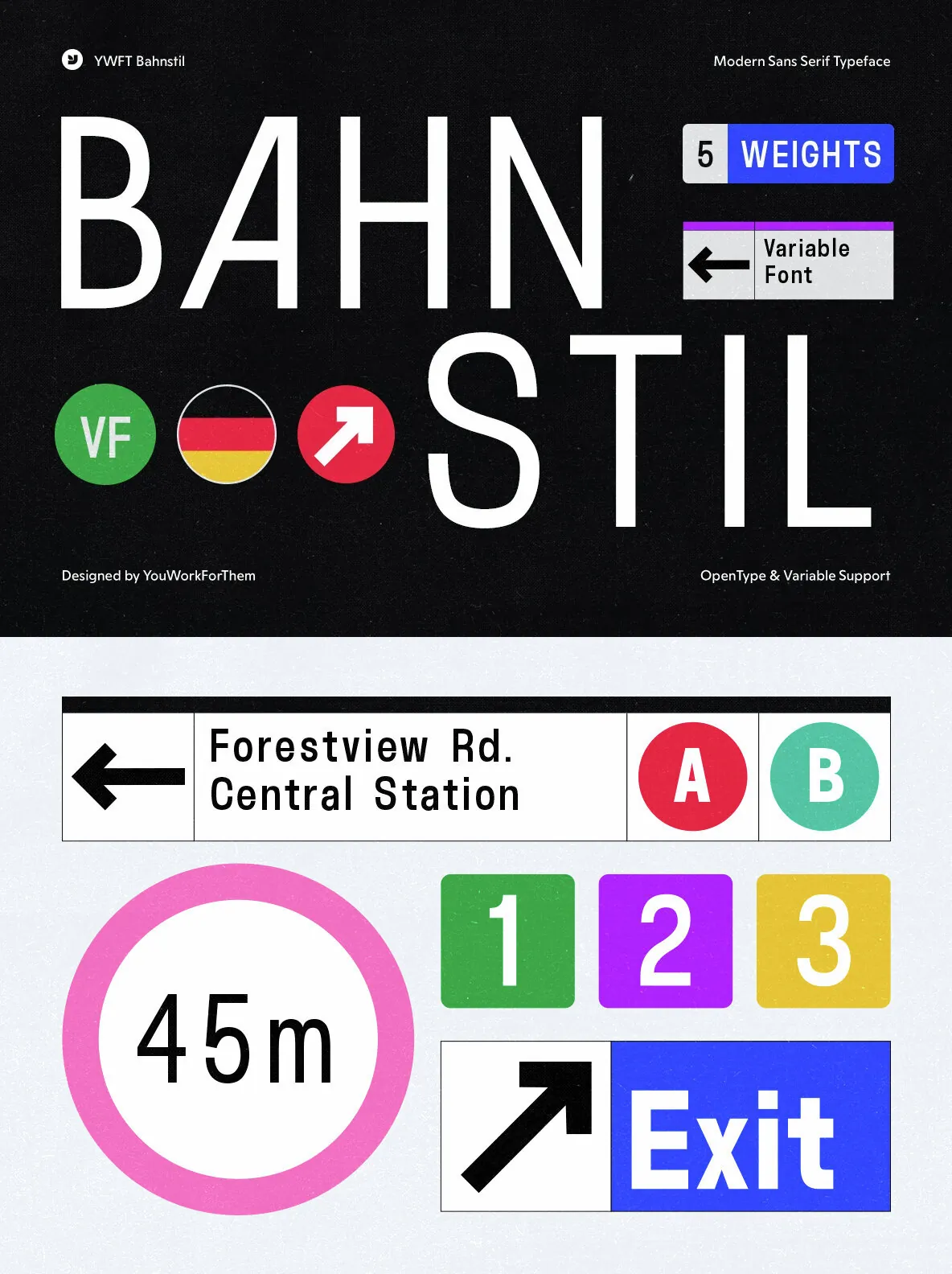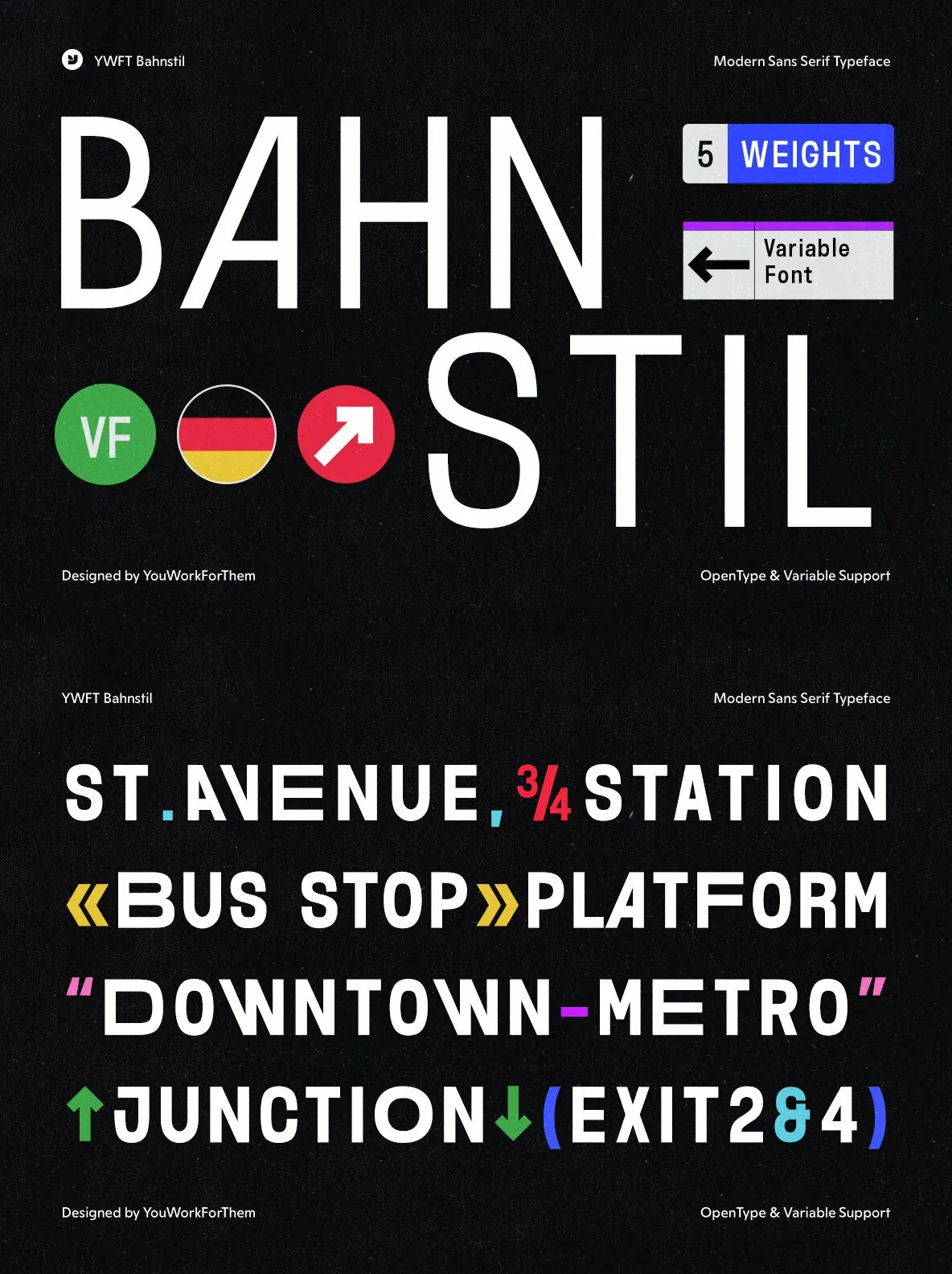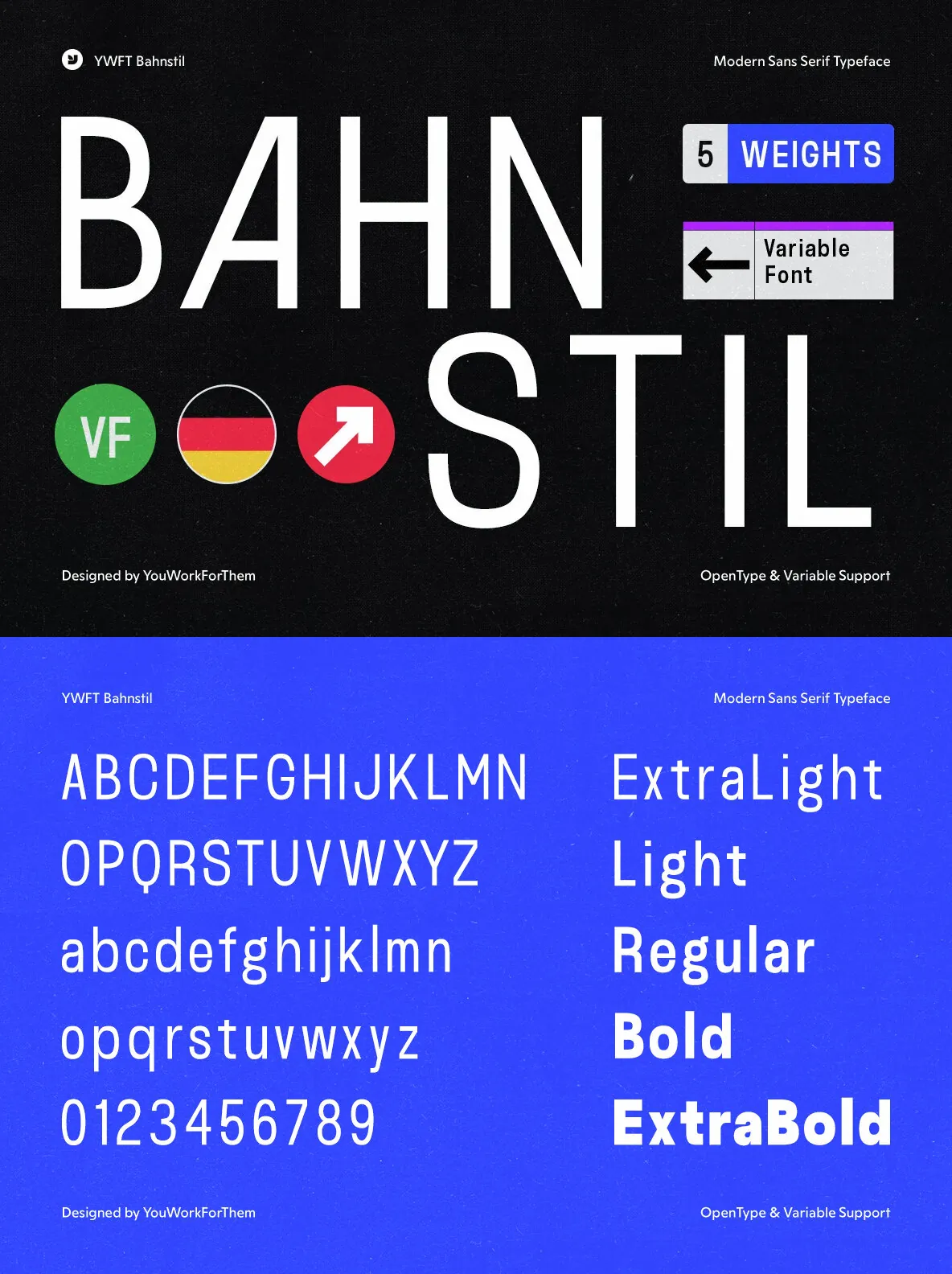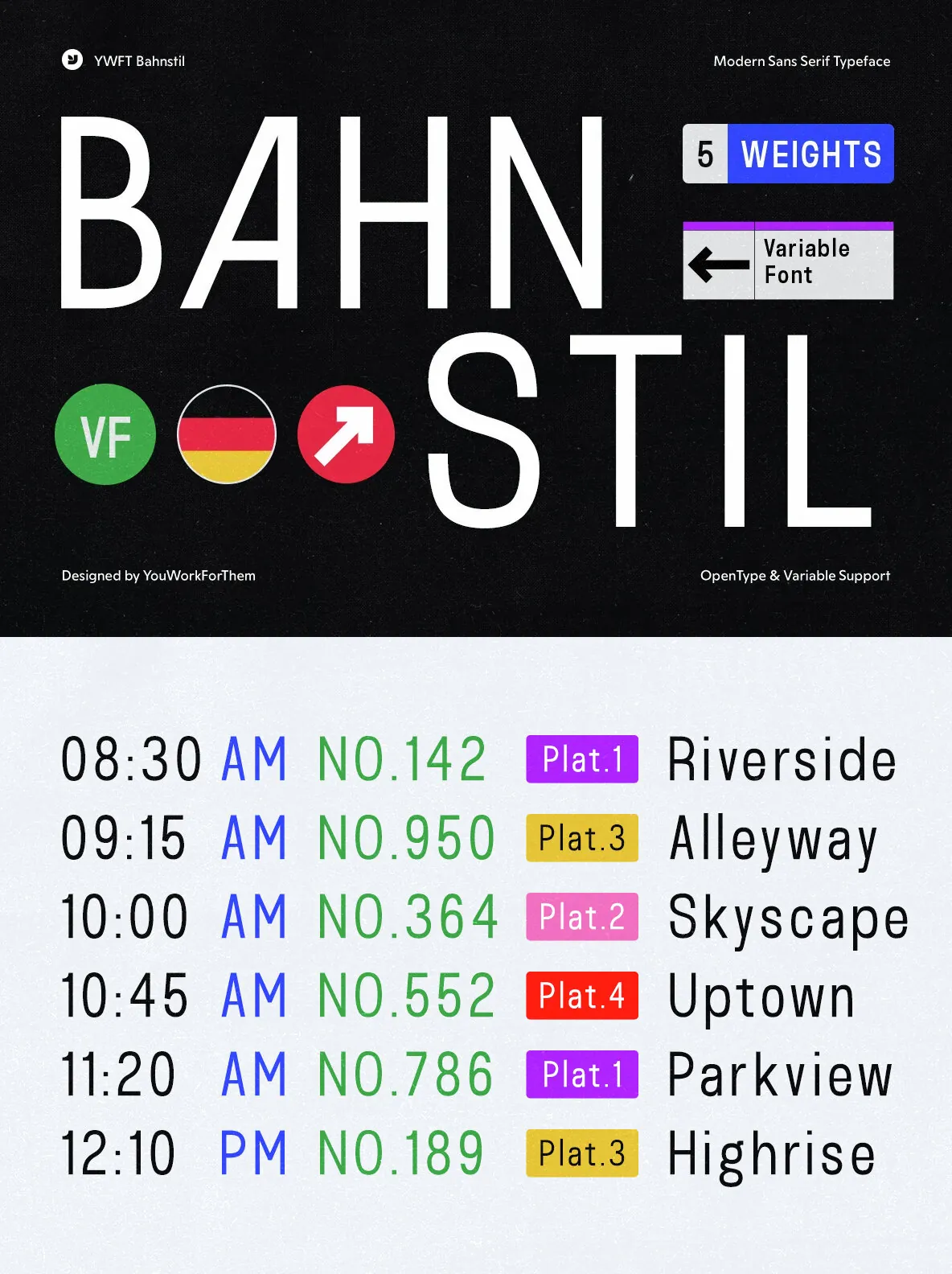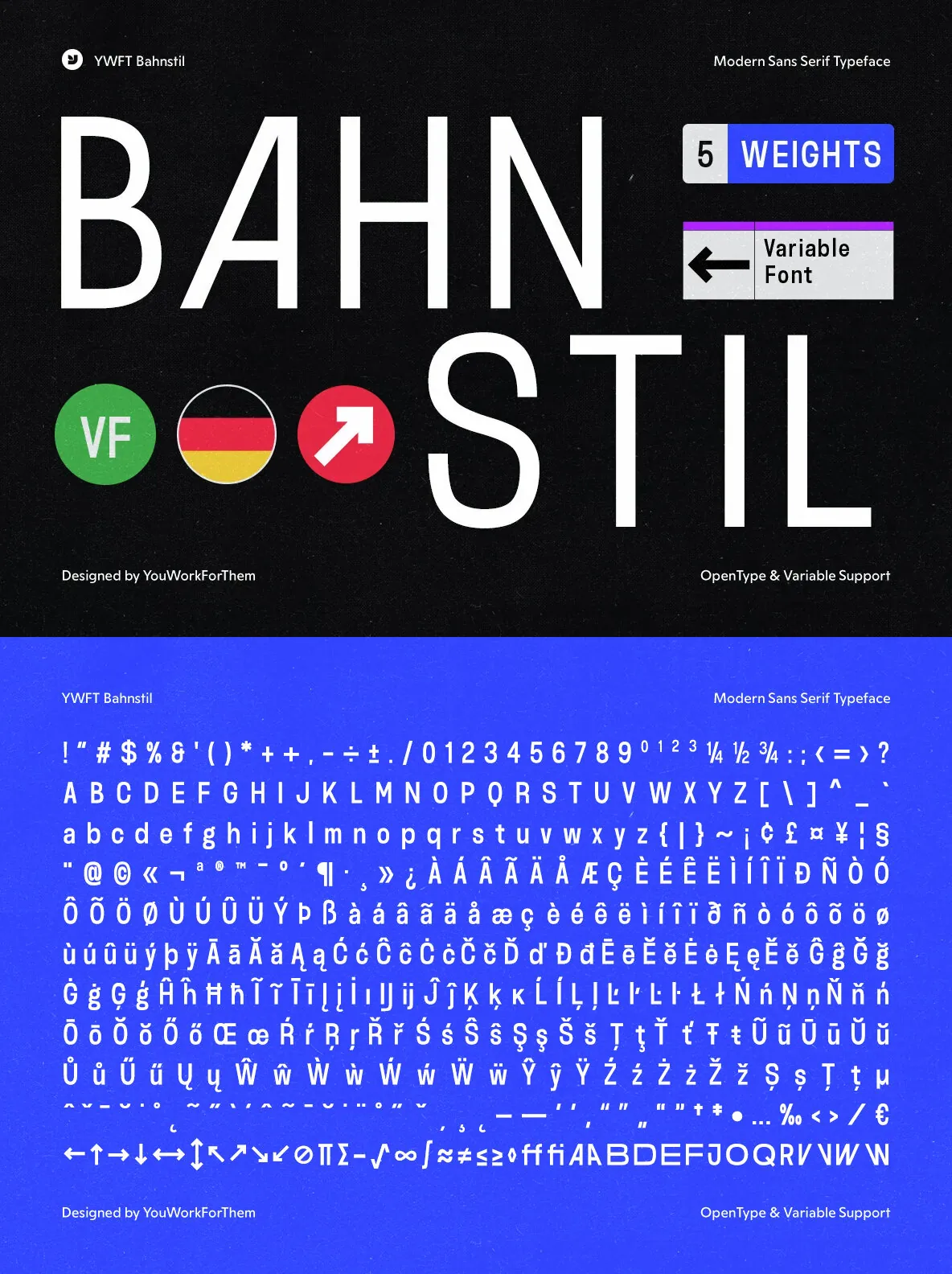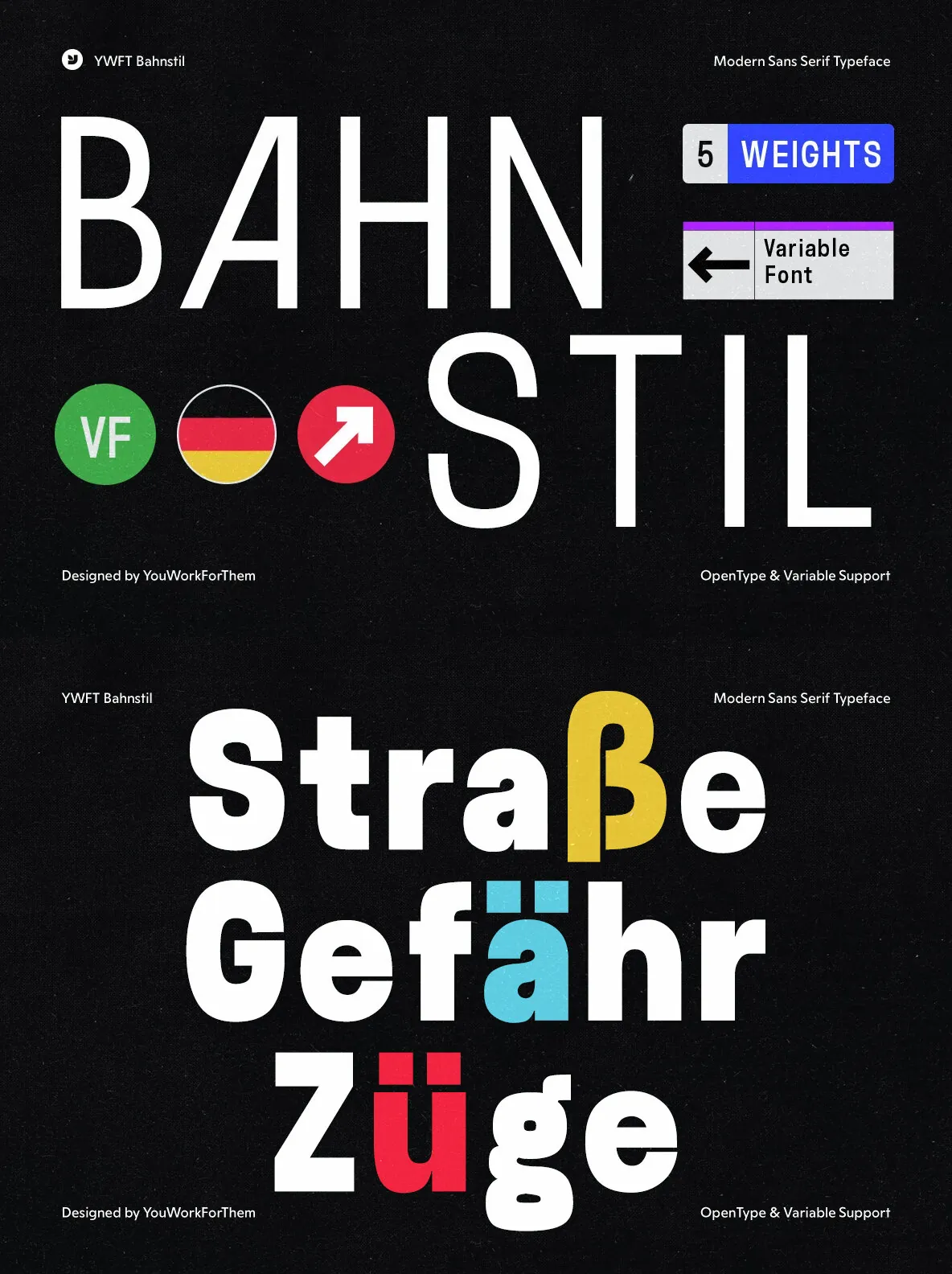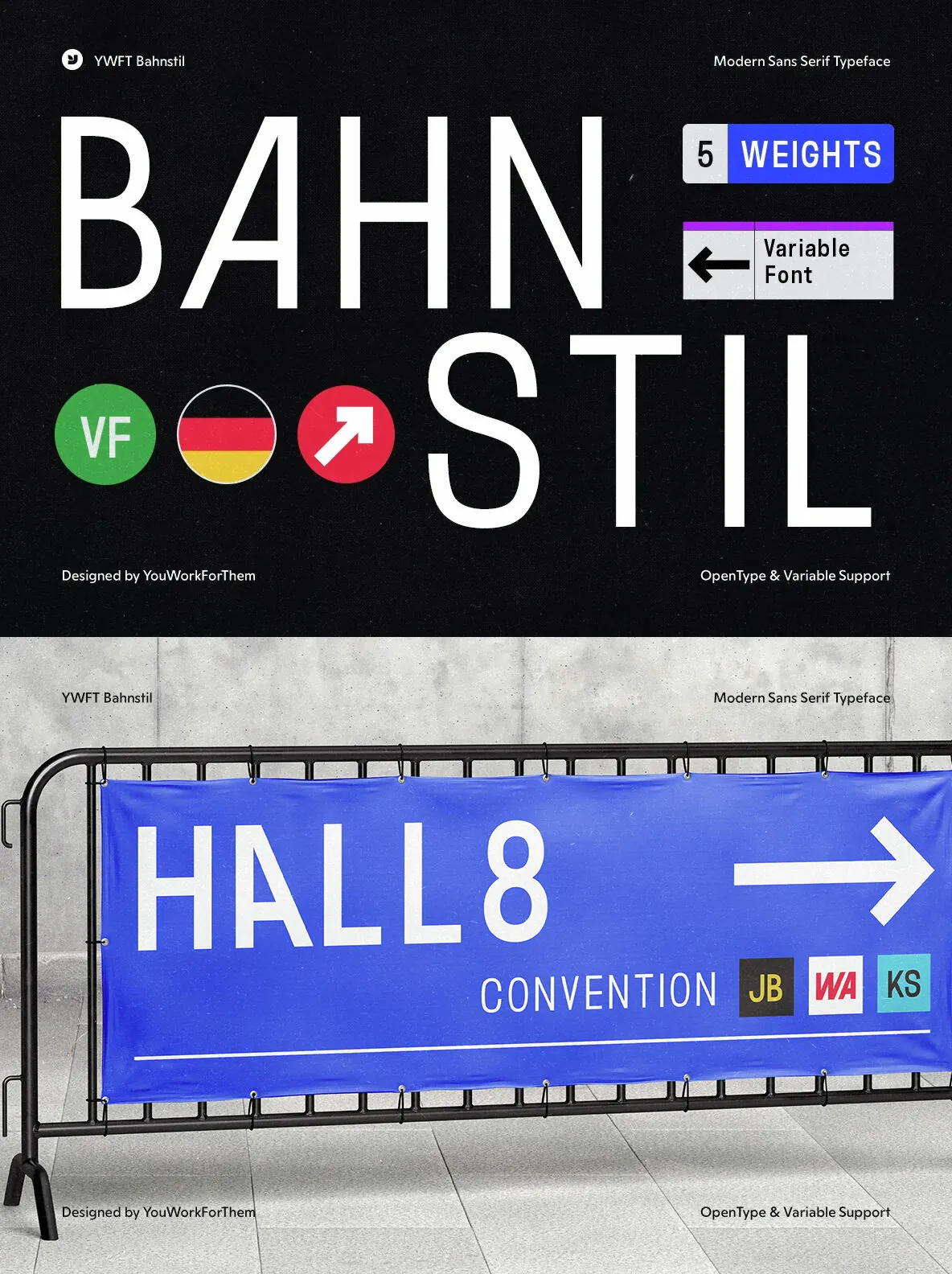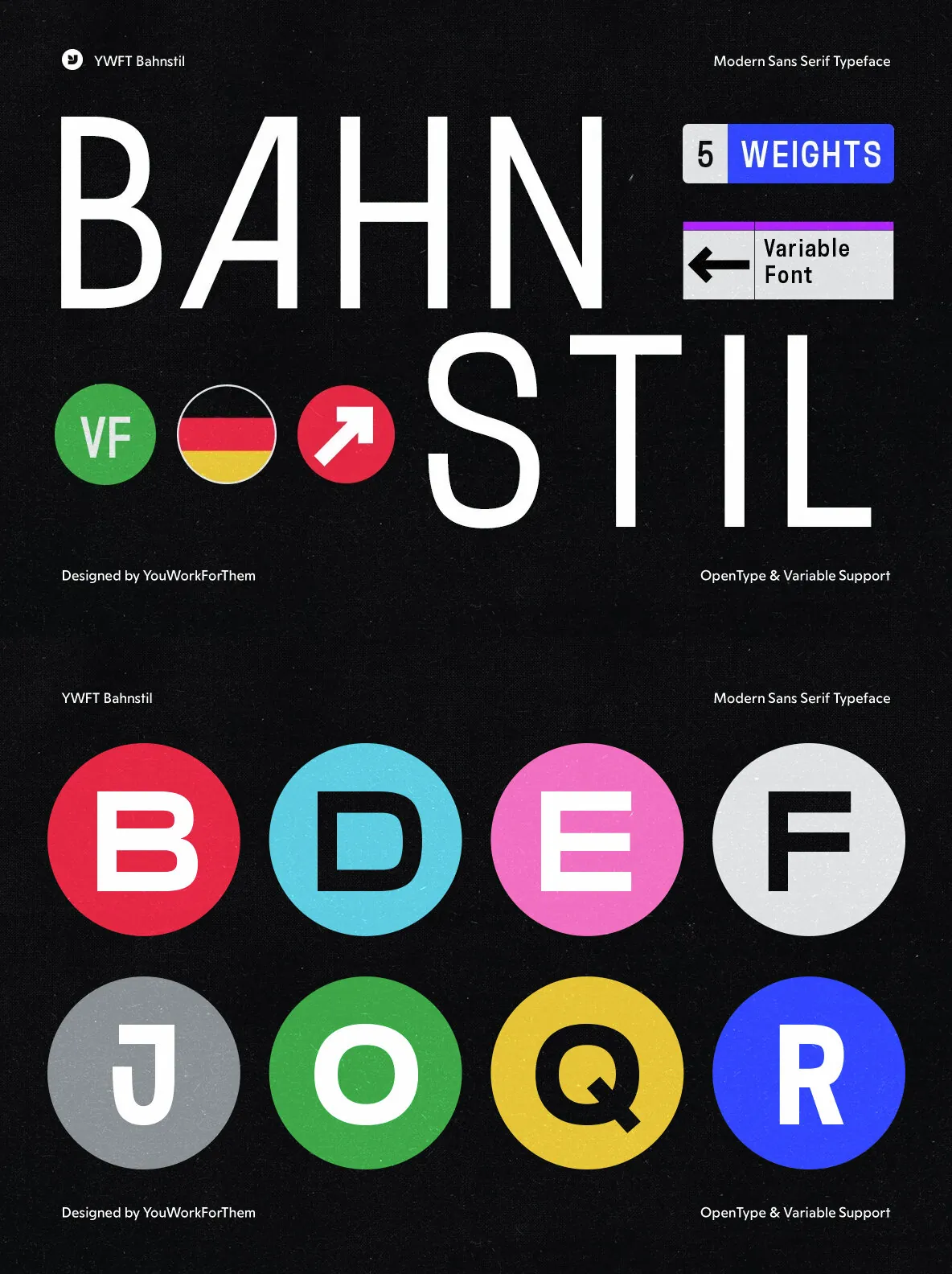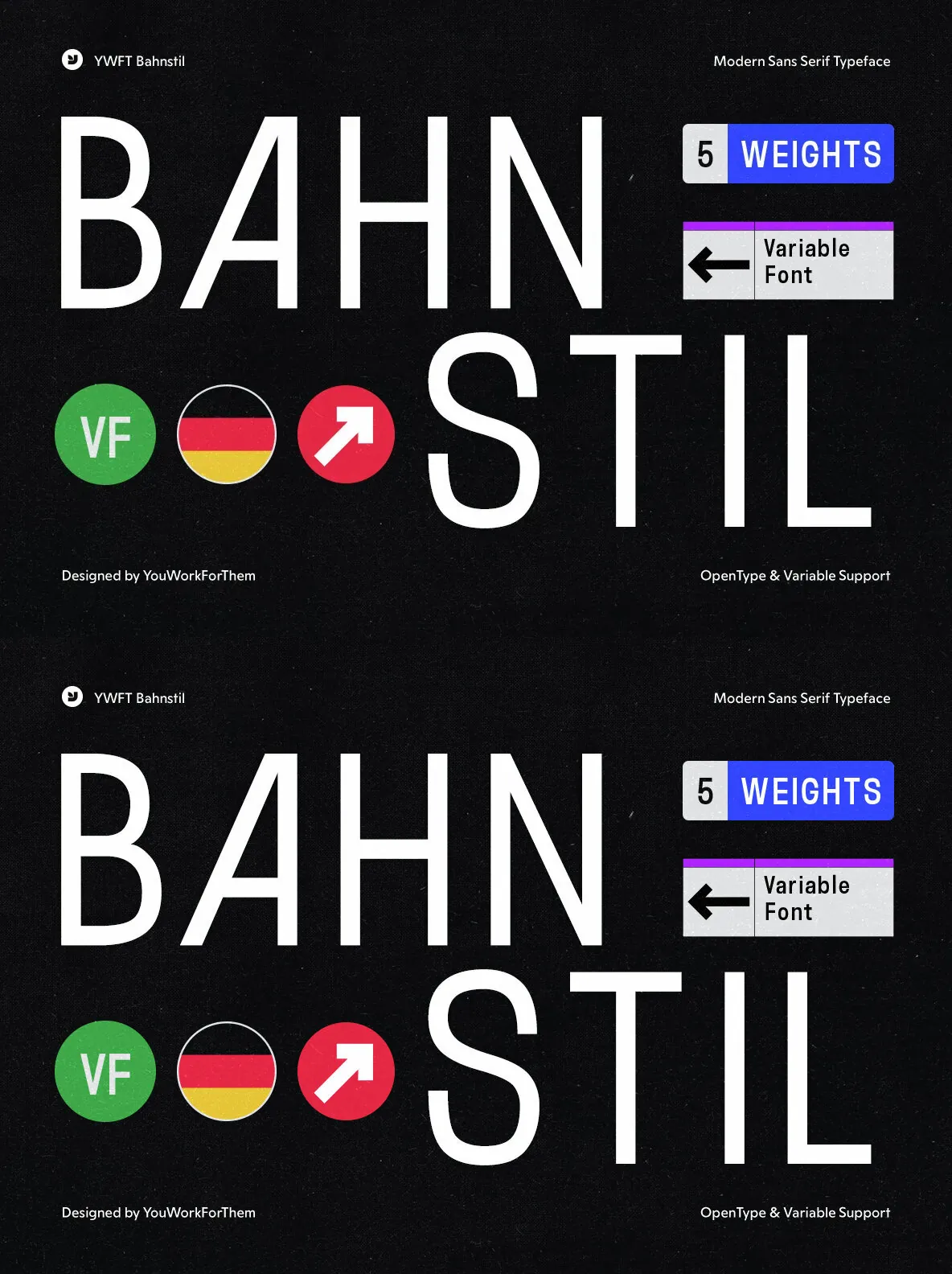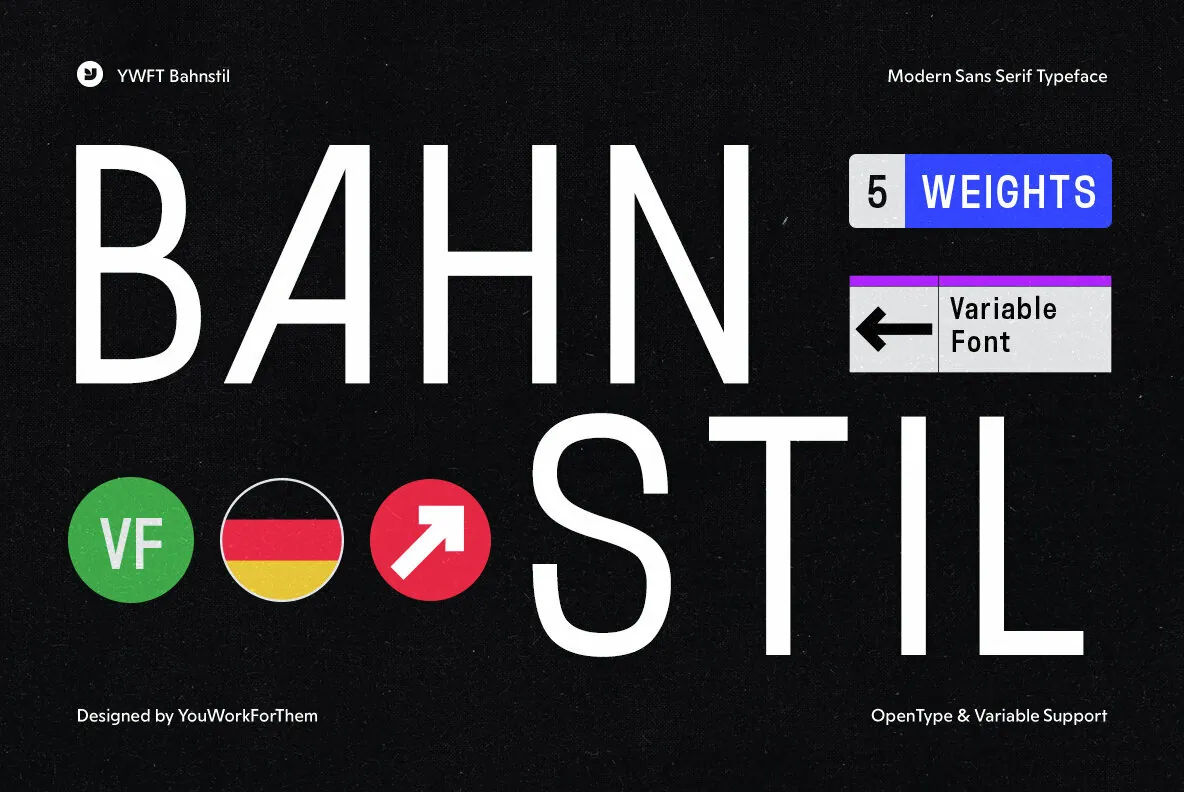
YWFT Bahnstil — DIN, With a Human Hand
YWFT Bahnstil blends historical precision with contemporary flair. Inspired by mid-20th century DIN types—DIN 1451 Engschrift, DIN Breitschrift, and DIN Mittelschrift—it revisits the tone of German industrial lettering through a modern lens. The result feels familiar, yet current, with the clarity and discipline designers expect from DIN-style fonts.
YWF Bahnstil balances mechanical rigidity with subtle humanistic touches. Its almost monospaced appearance stays structured, while distinctive letters and organic curves soften the overall texture for today’s digital typography. Use it for user interfaces, digital advertisements, and corporate identities when you need a typeface that respects classic DIN logic but welcomes the slight imperfections that make work feel more human.
Exquisite Typeface Features
OpenType Capabilities: Unlocks a myriad of possibilities with style sets, stylistic alternates, and ligatures.
Extensive Glyph Coverage: Offers over 400 glyphs per weight, ensuring adaptability across diverse languages and contexts.
Five Weights and Variable Options: Ranges from Extra Light to Extra Bold, alongside a Variable font option for dynamic scaling.